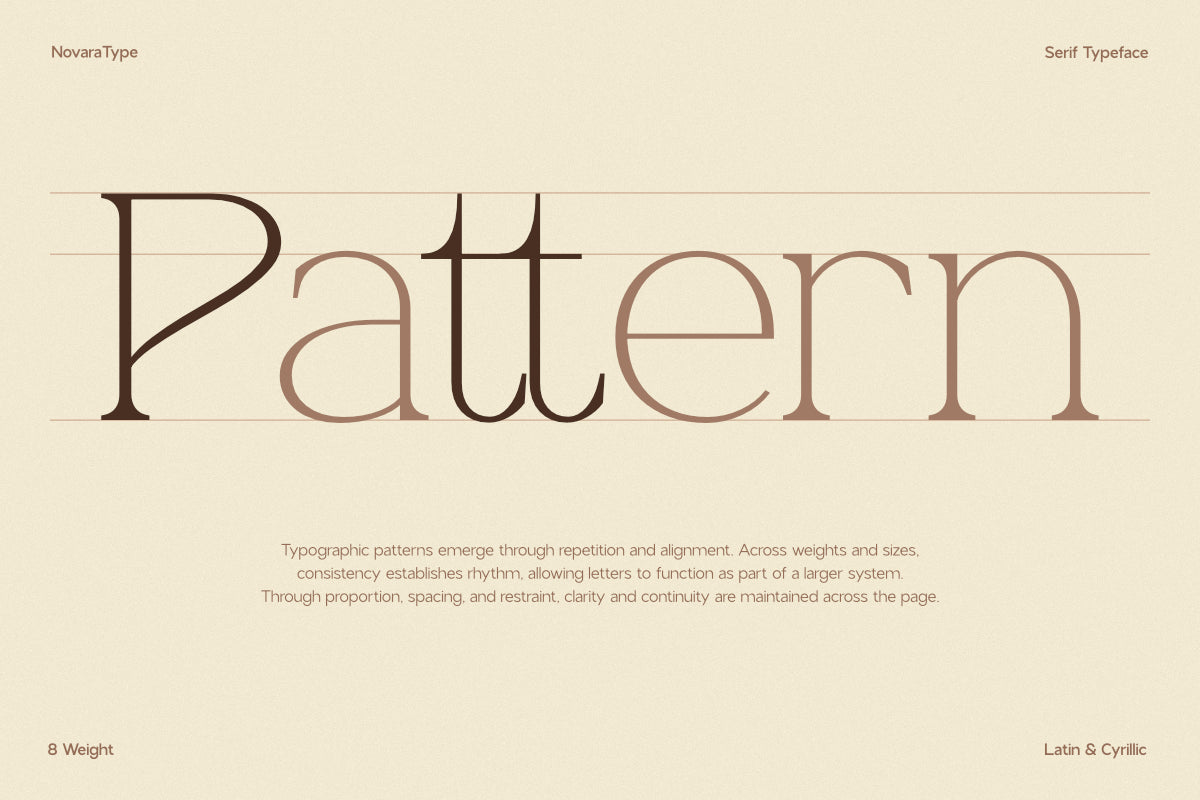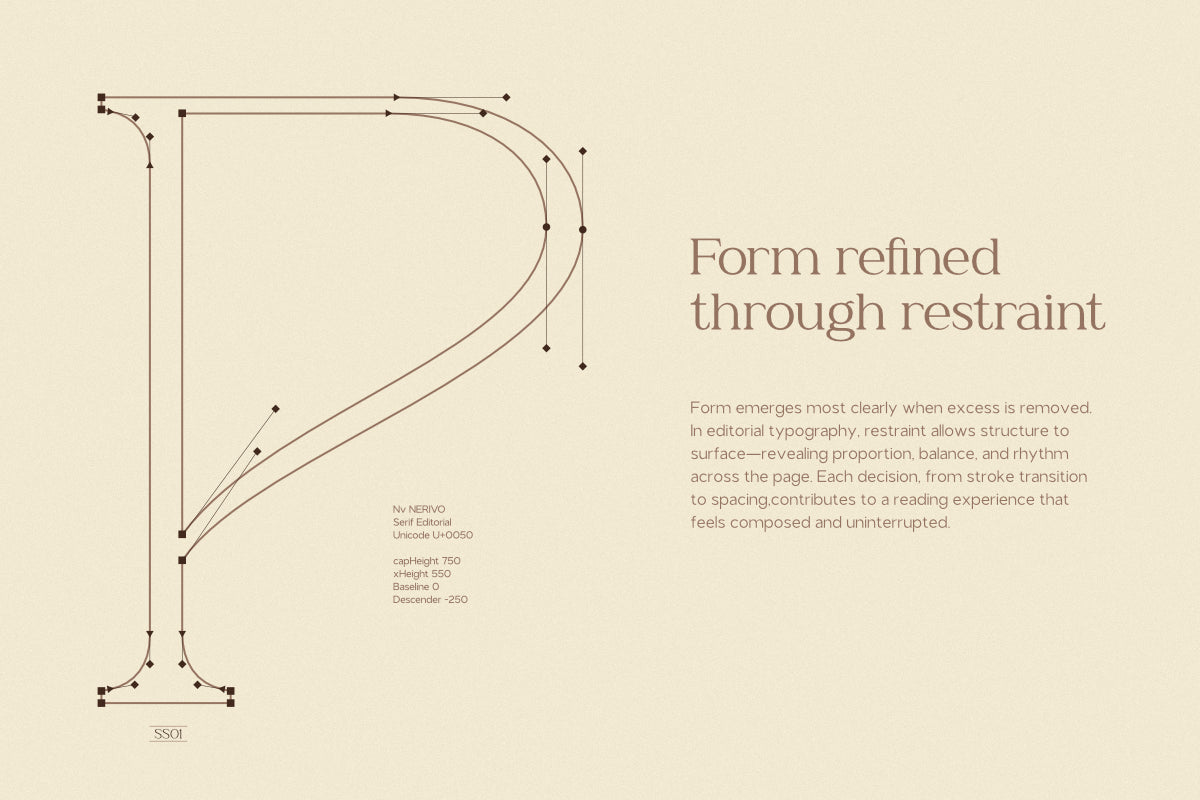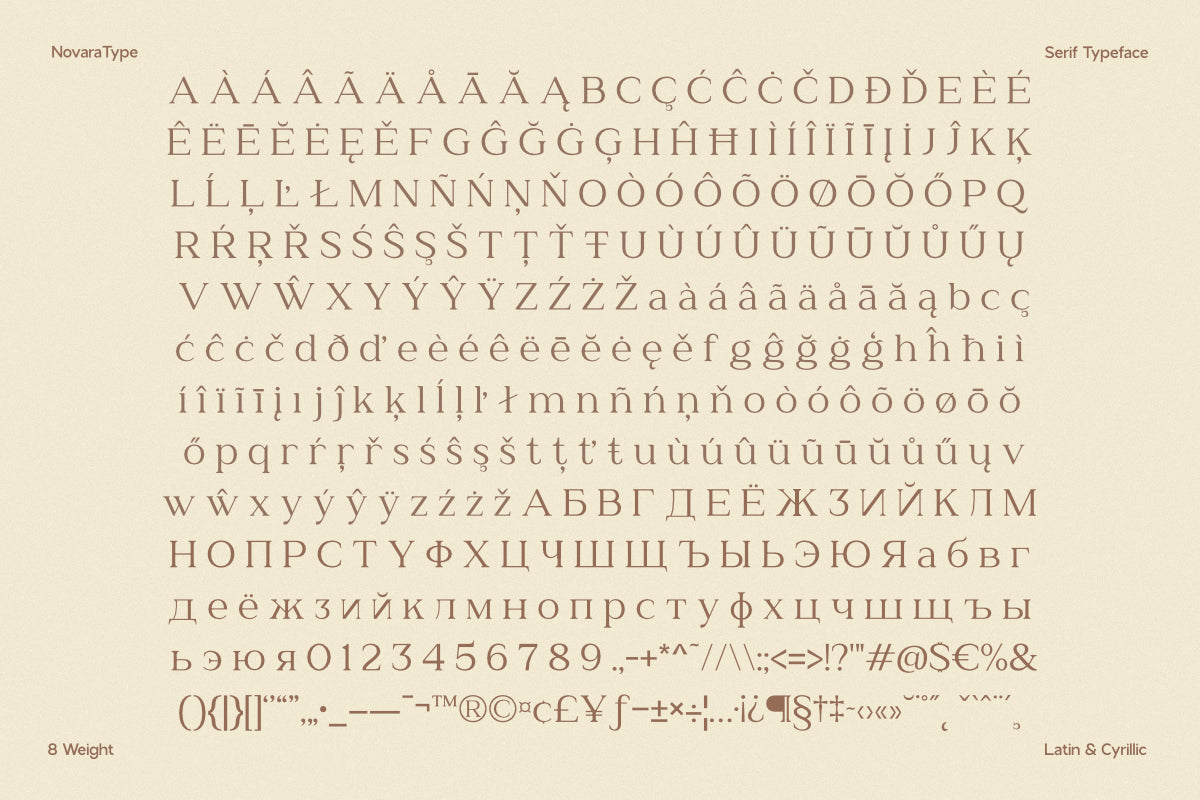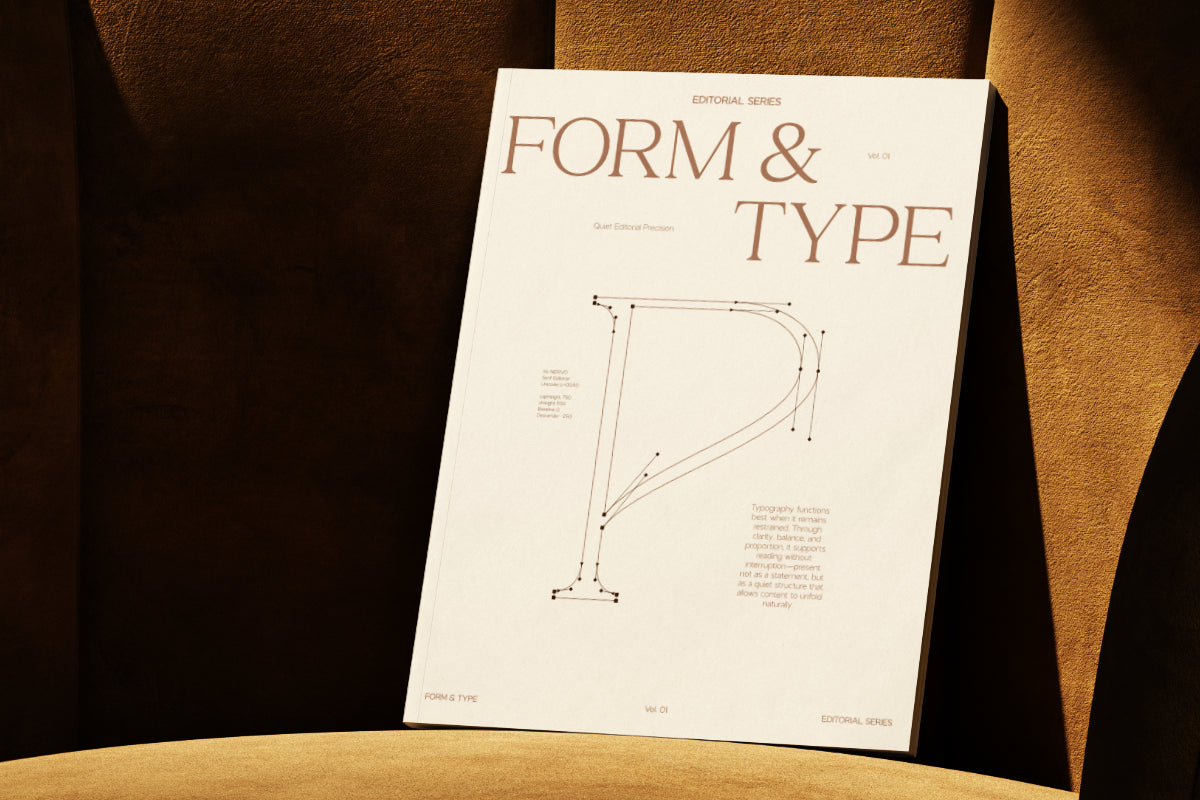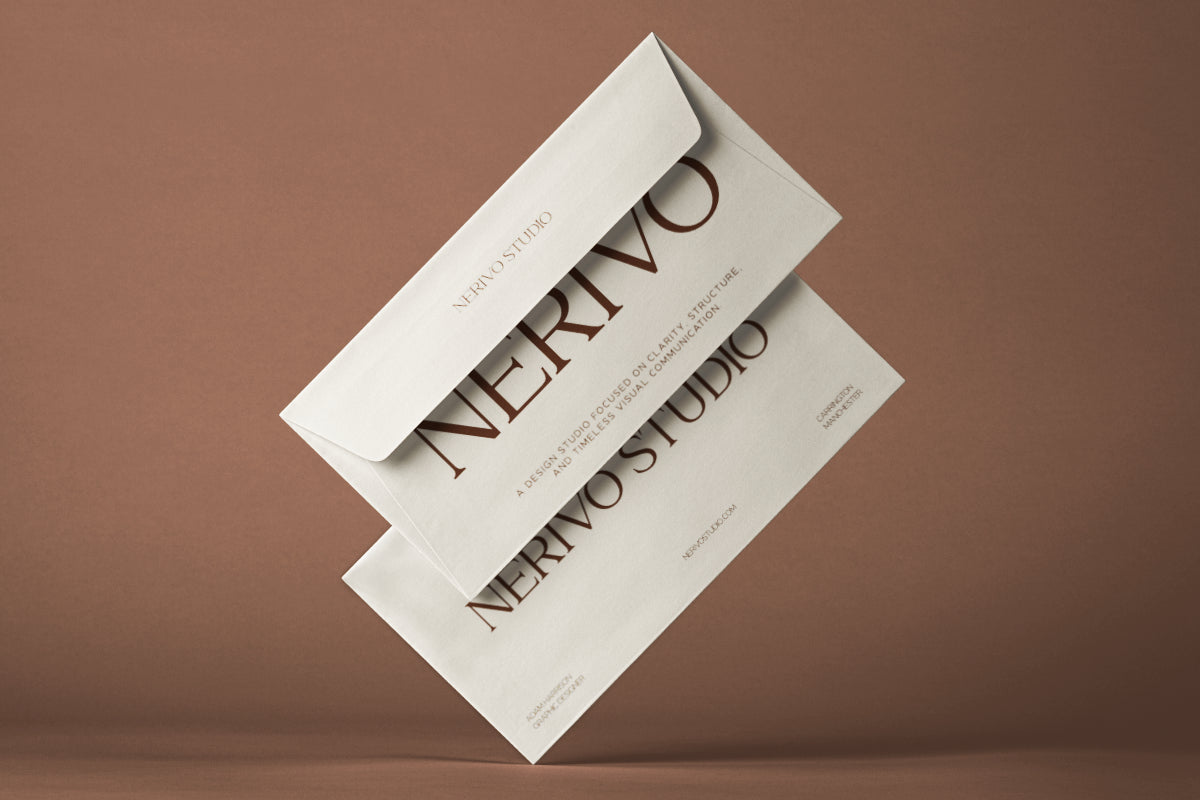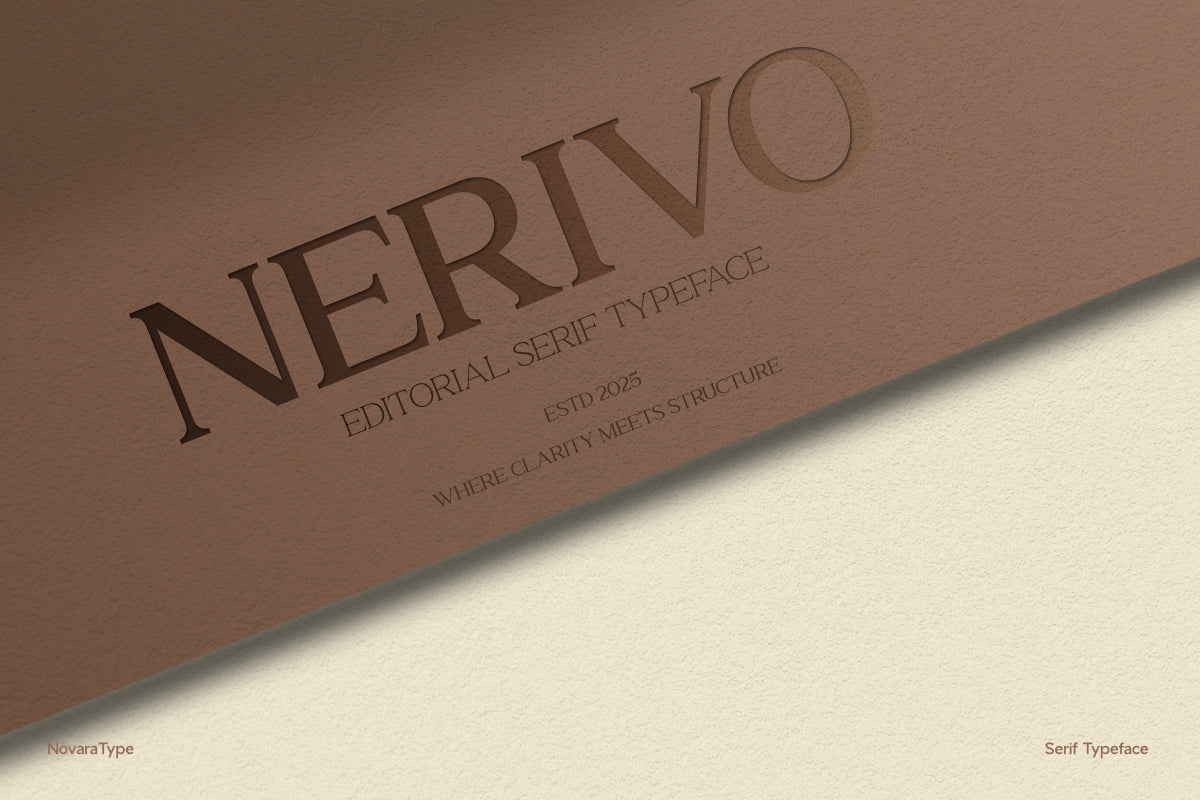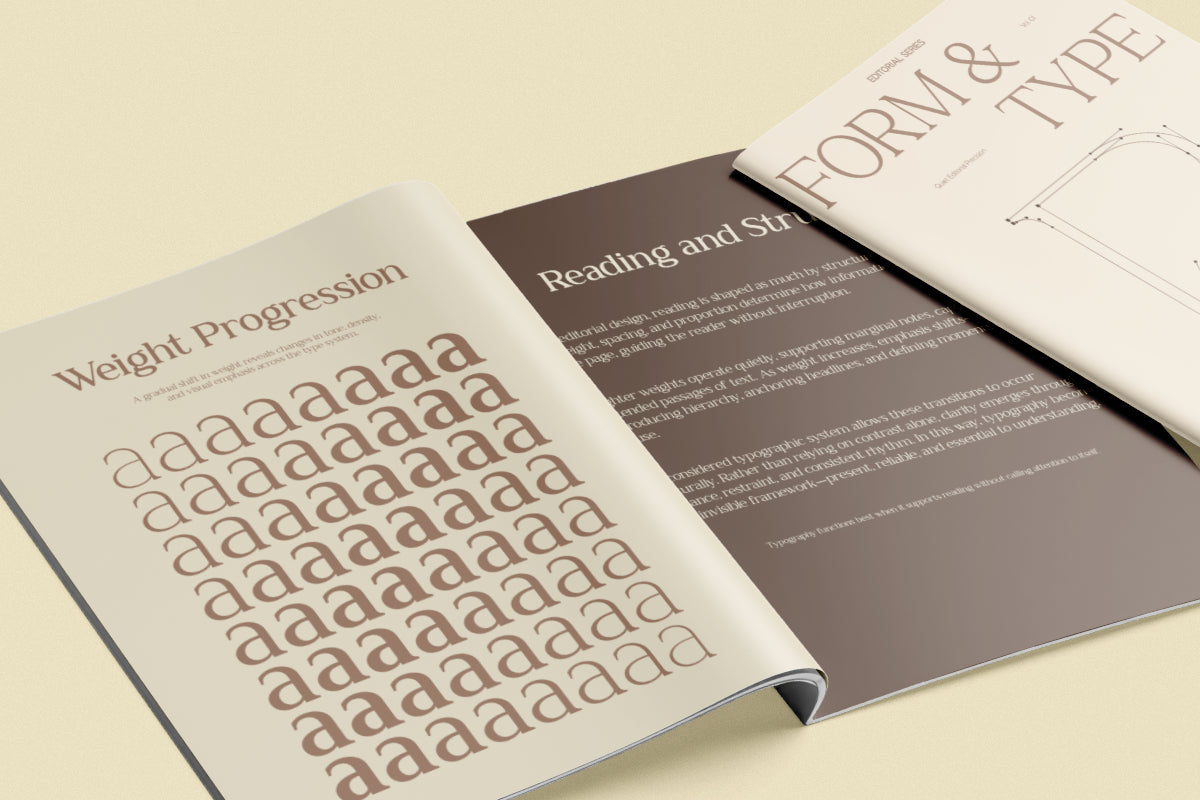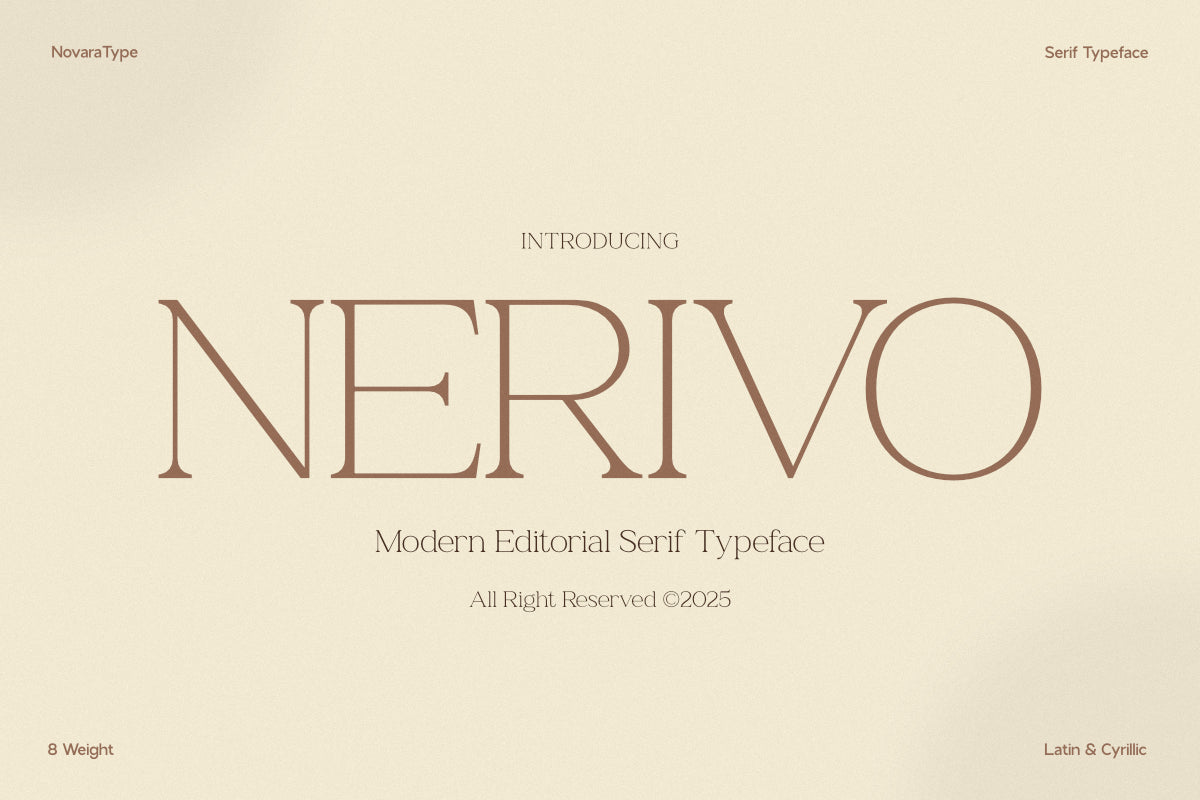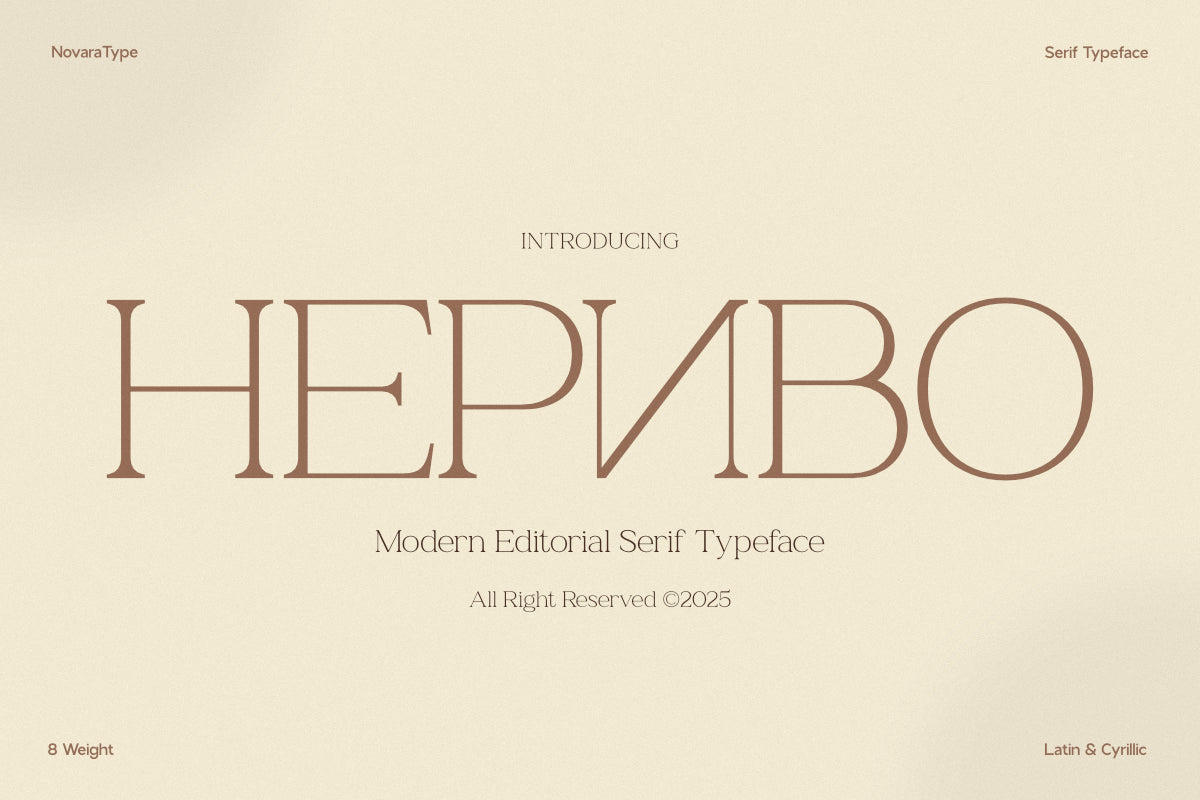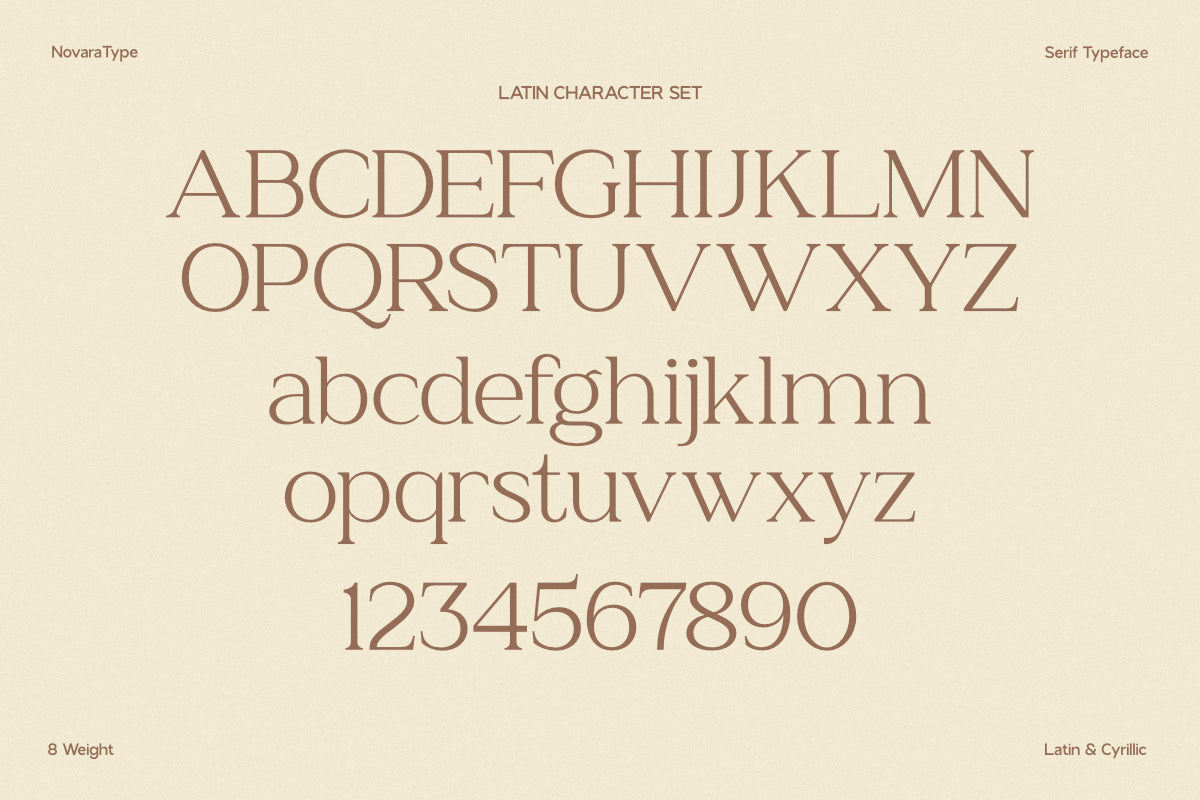
NV NERIVO – Modern Serif Font Family
NovaraType
NV NERIVO Serif Font Family is a refined modern serif type system designed to express elegance, readability, and timeless character. Developed by NovaraType, NV NERIVO blends classic serif foundations with contemporary proportions—making it an excellent choice for editorial layouts, branding identities, luxury designs, and sophisticated digital or print applications.
NV NERIVO is carefully crafted to perform beautifully across different weights and typographic scales. From expressive headlines to refined body text, each weight maintains consistent rhythm, contrast, and clarity. Its elegant structure and subtle details help elevate visual storytelling while remaining flexible for modern design systems.
NV NERIVO Serif Font Family Includes:
• Multiple Weights
• Serif Styles
• Alternates & Ligatures
• Numerals & Punctuation
• Accented Characters
The NV NERIVO – Modern Serif Font Family is a versatile type system that combines classic serif elements with contemporary proportions, offering multiple weights, styles, alternates, ligatures, numerals, punctuation, accented characters, and multilingual support. Designed for clarity and consistency, it is suitable for various design applications and is compatible with professional design software that supports OpenType features.